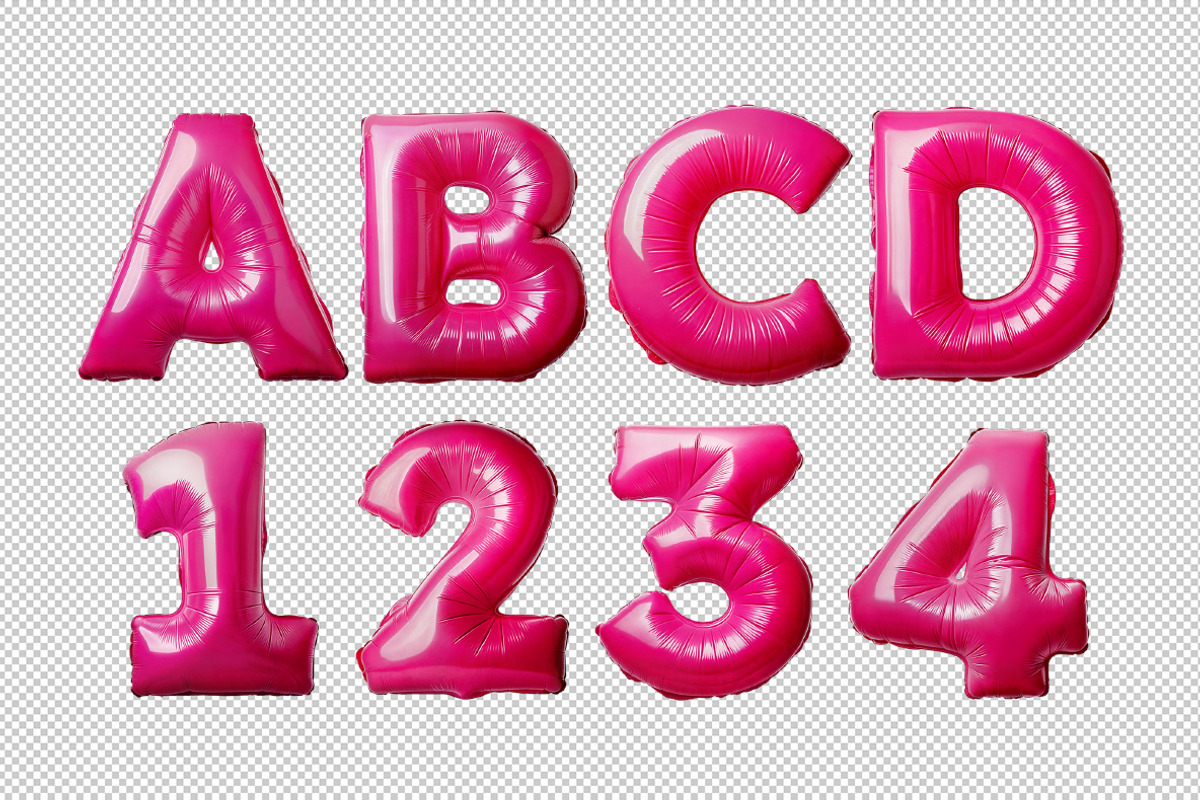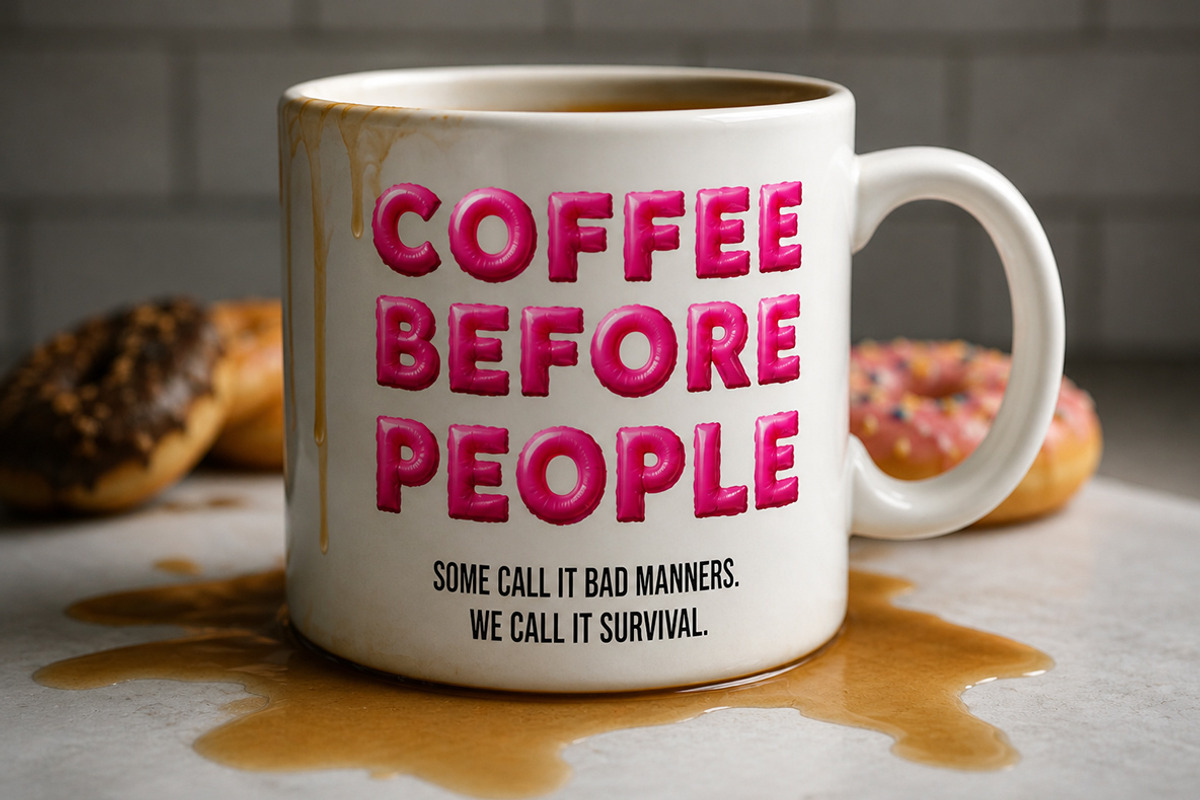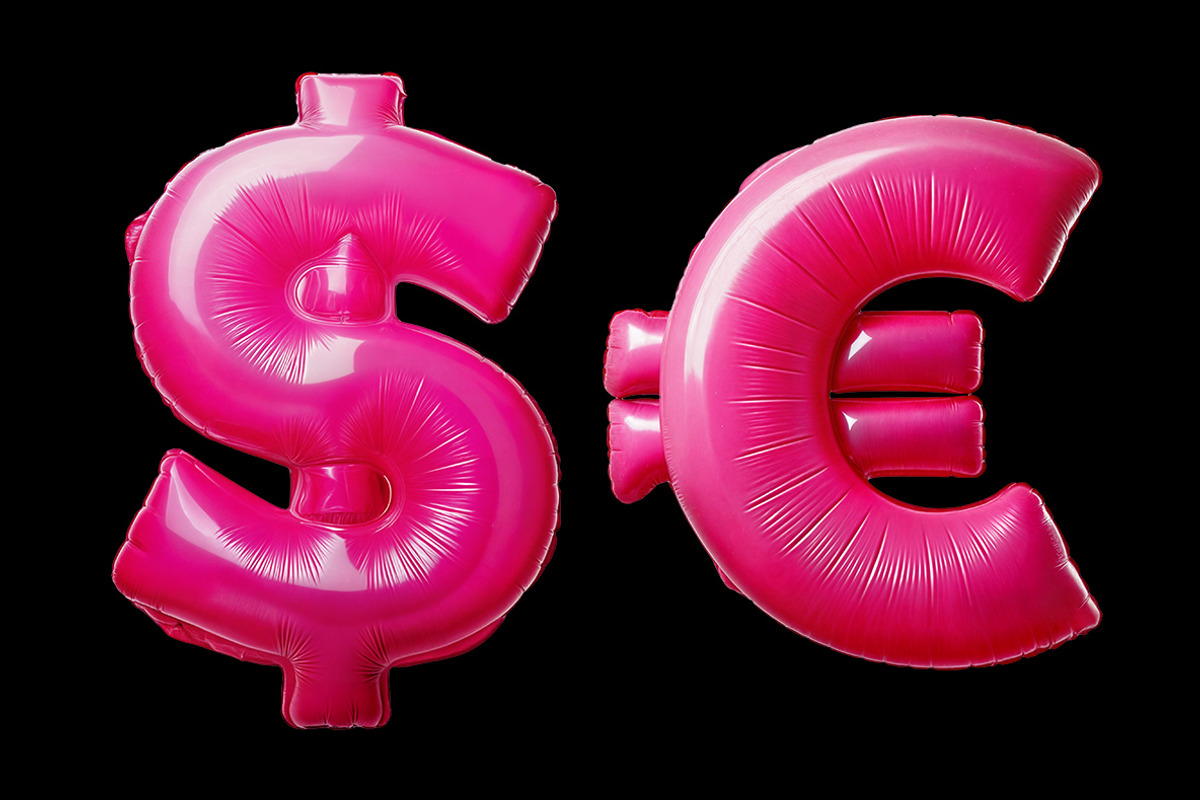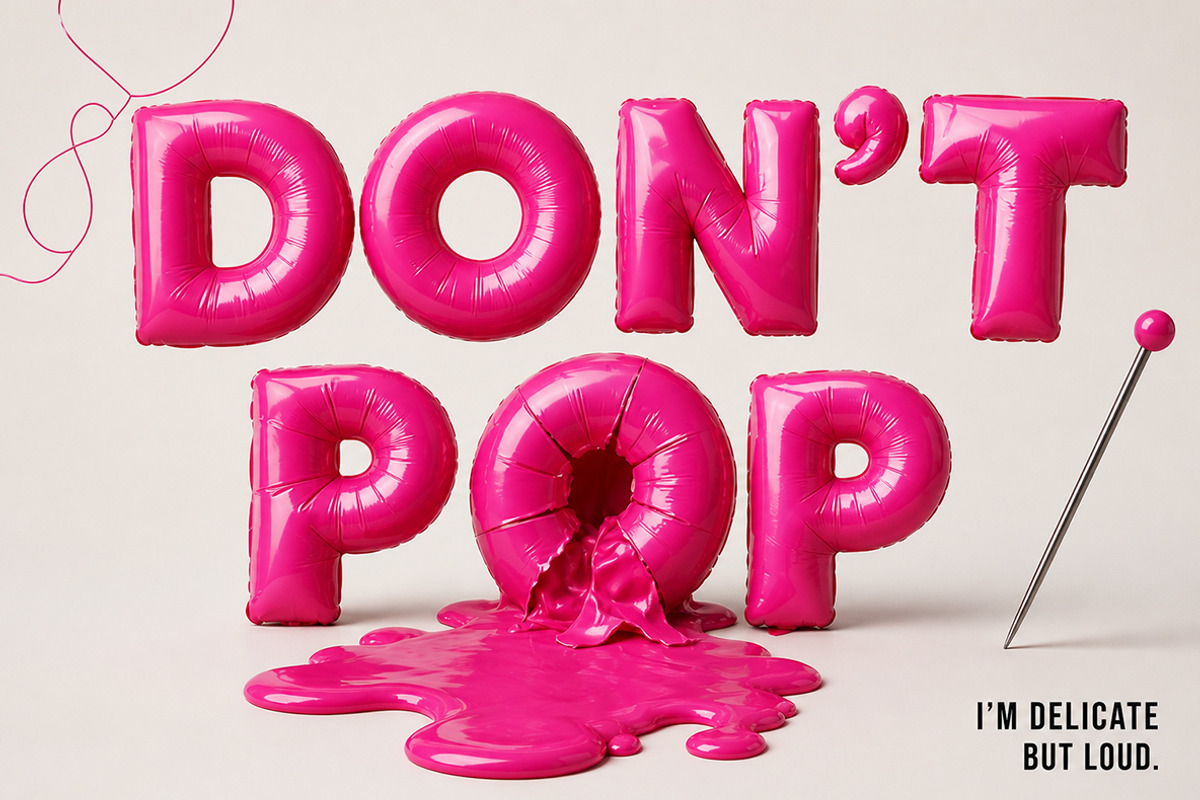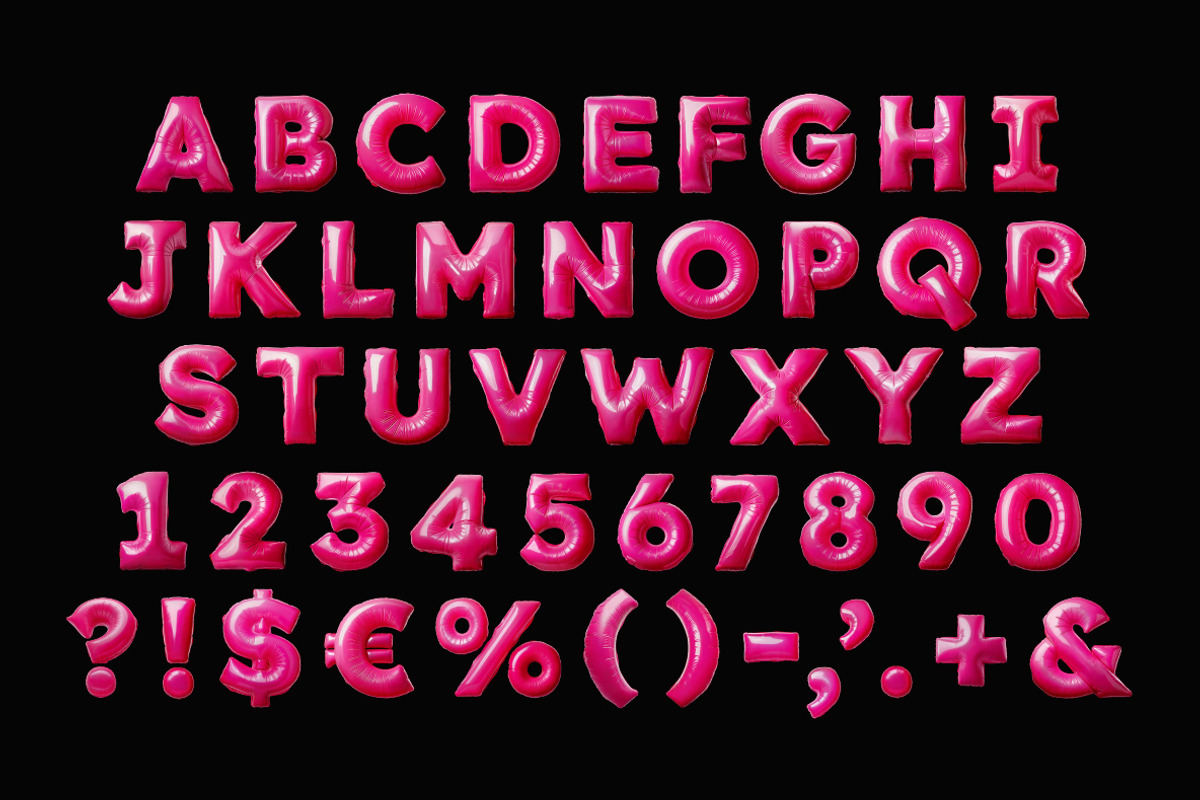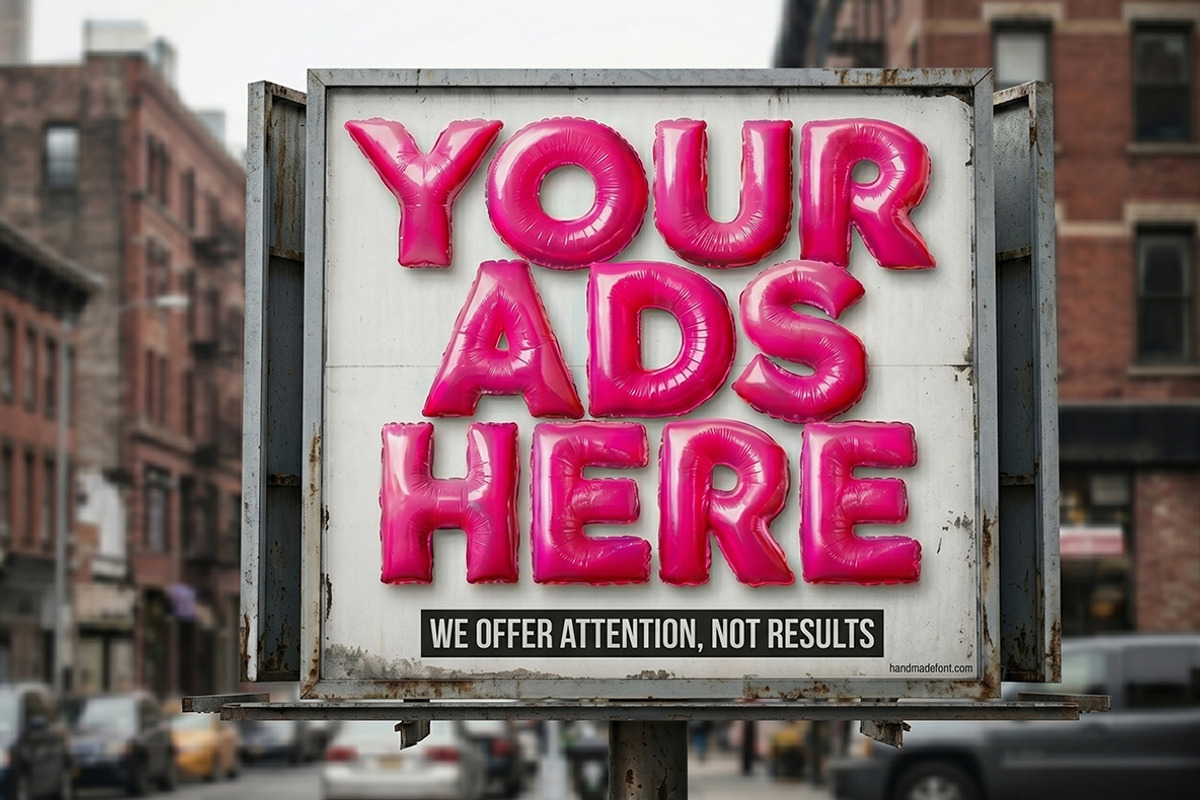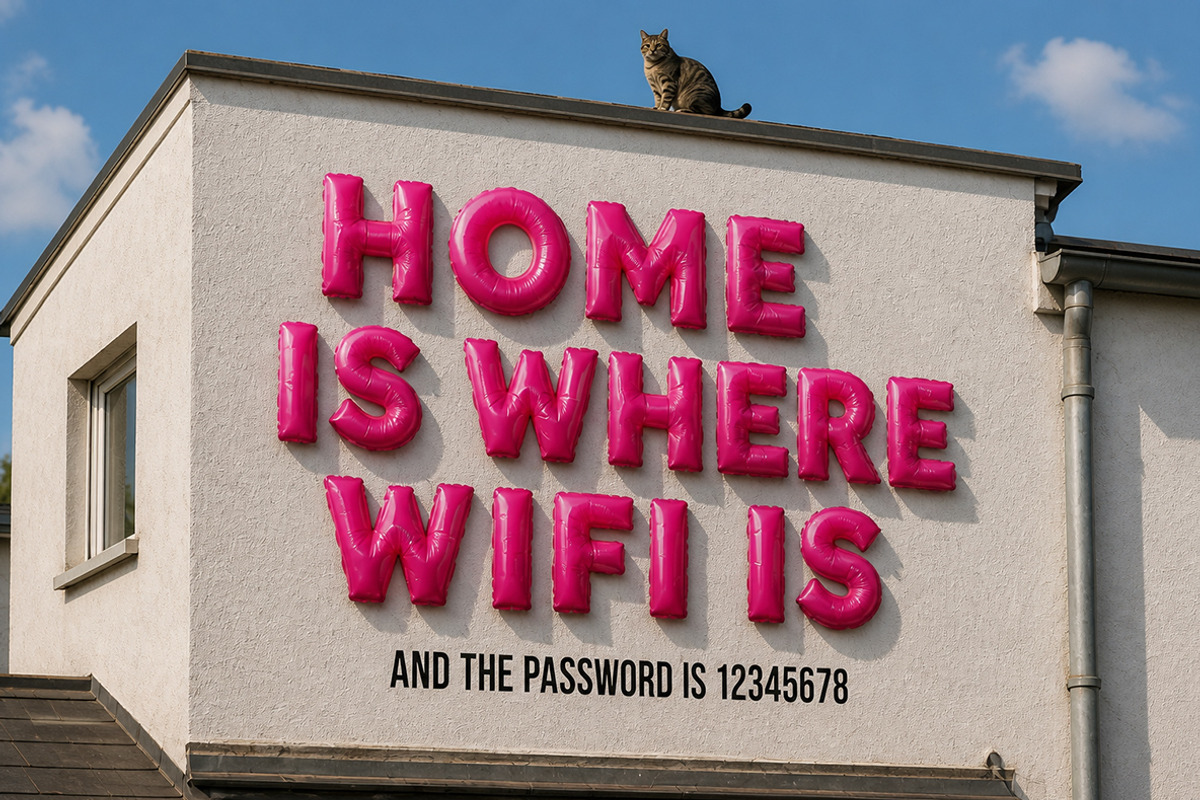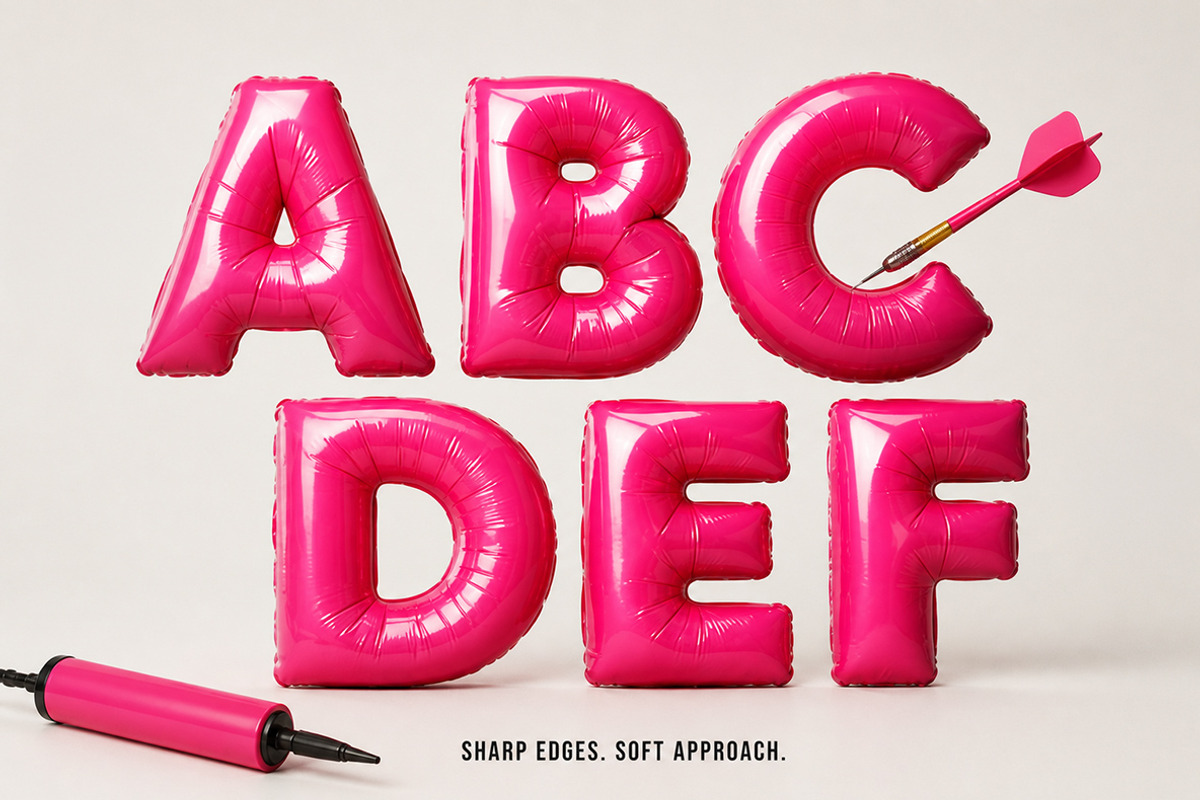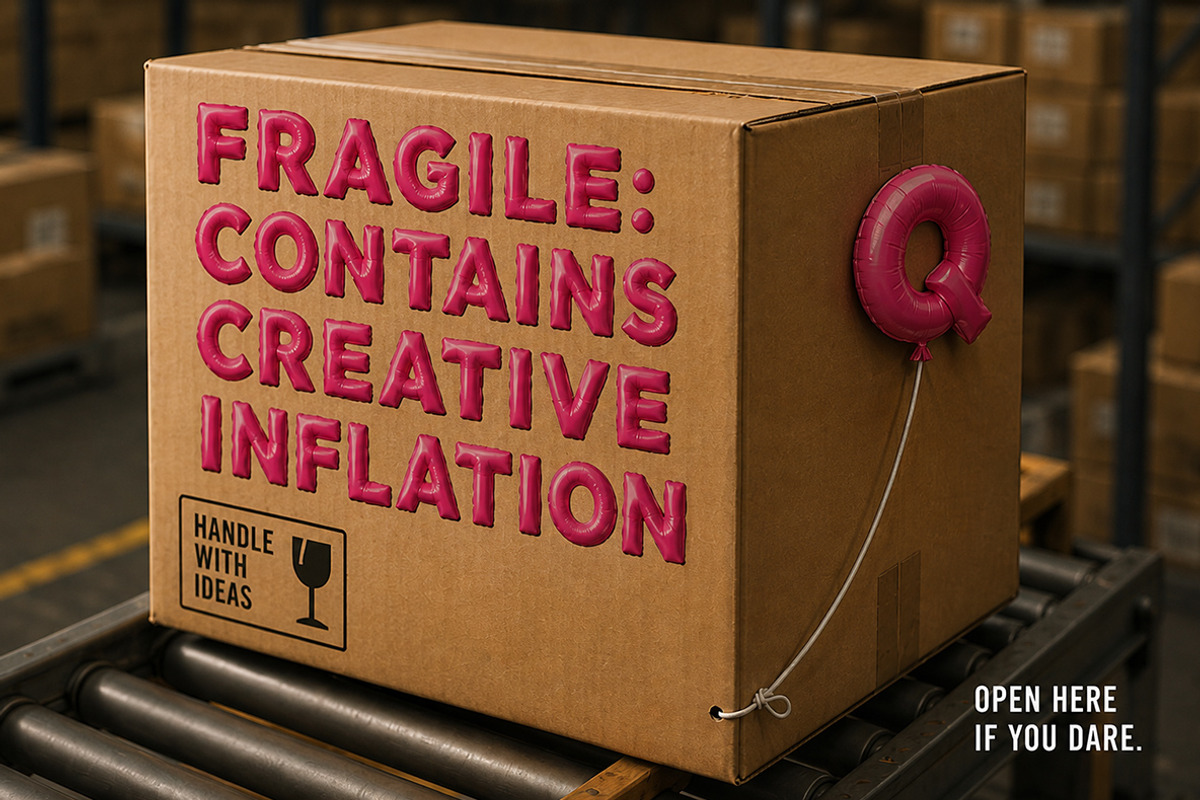
Pink Balloon Font
Pink Balloon Font is a playful, eye-catching typeface designed to bring a sense of joy, celebration, and bold visual impact to any project. Inspired by glossy inflatable balloons, each letter features soft curves, realistic highlights, and a tactile 3D appearance that instantly adds depth and personality. It is perfect for posters, social media graphics, event branding, packaging, and any design that needs a fun and memorable touch.
This combination of a working font and standalone image assets makes Pink Balloon Font extremely versatile. You can quickly type text or build fully custom compositions with precise control over each letter. Whether you are creating bold headlines or detailed visual layouts, this font delivers a striking, modern, and playful aesthetic.
Letters : A B C D E F G H I J K L M N O P Q R S T U V W X Y Z
Numbers : 0 1 2 3 4 5 6 7 8 9
Others : ! ? - . ' $ € % & #